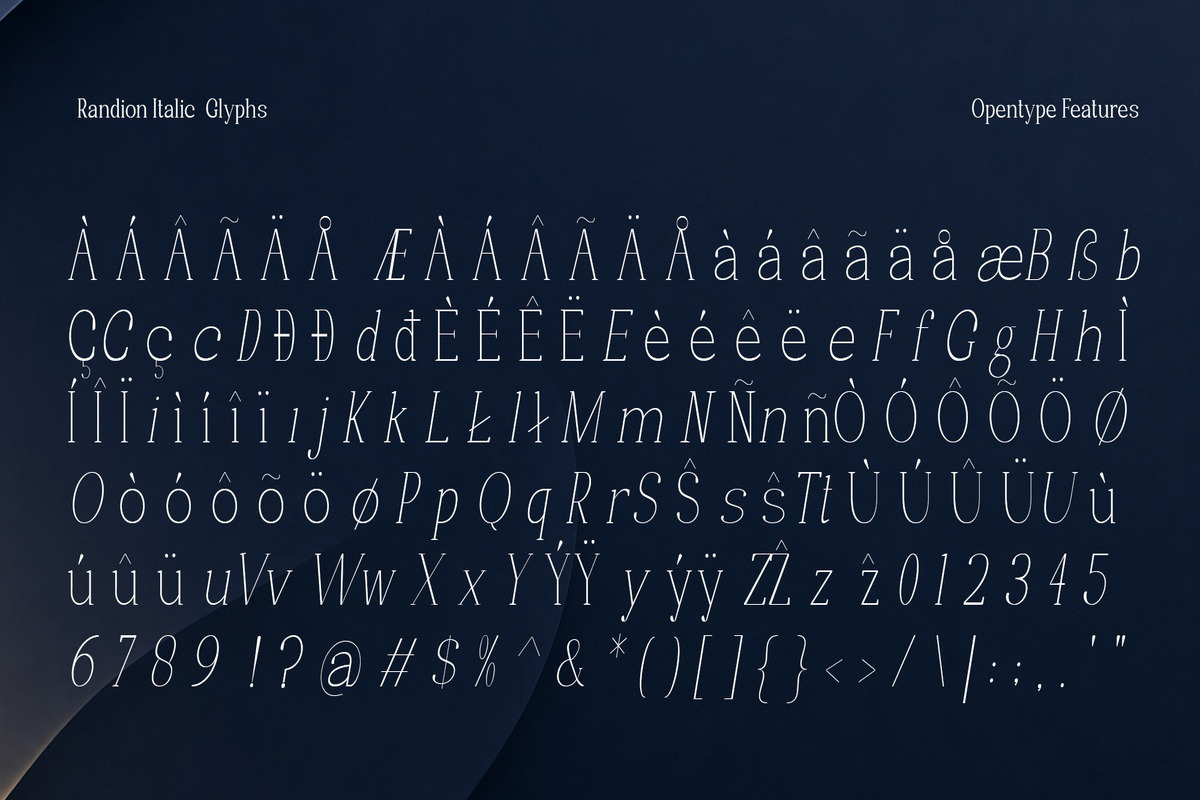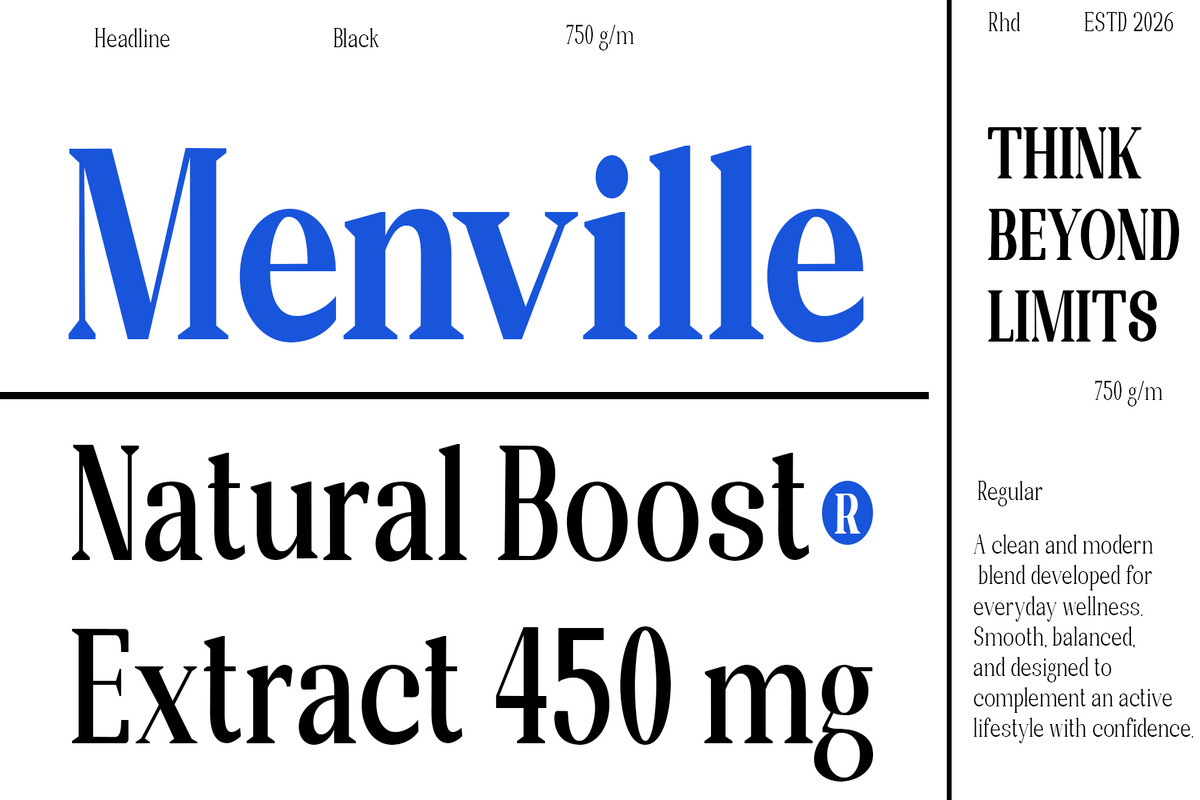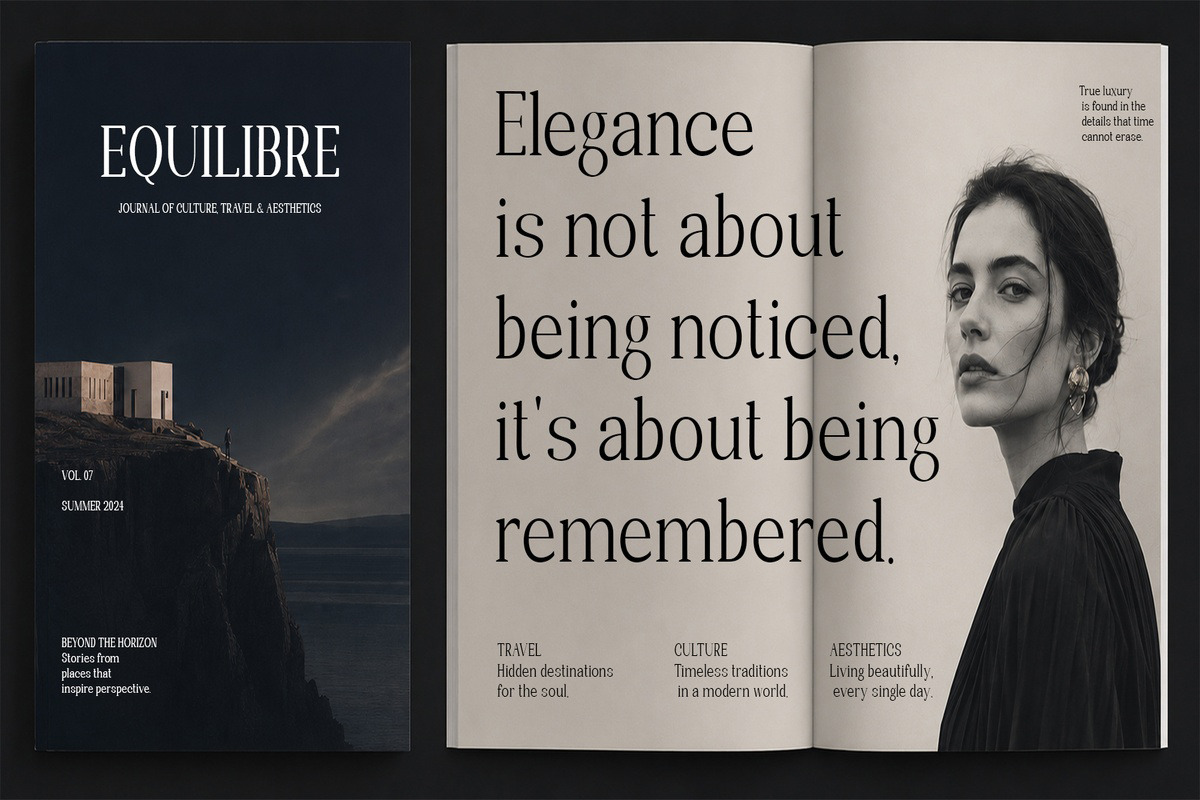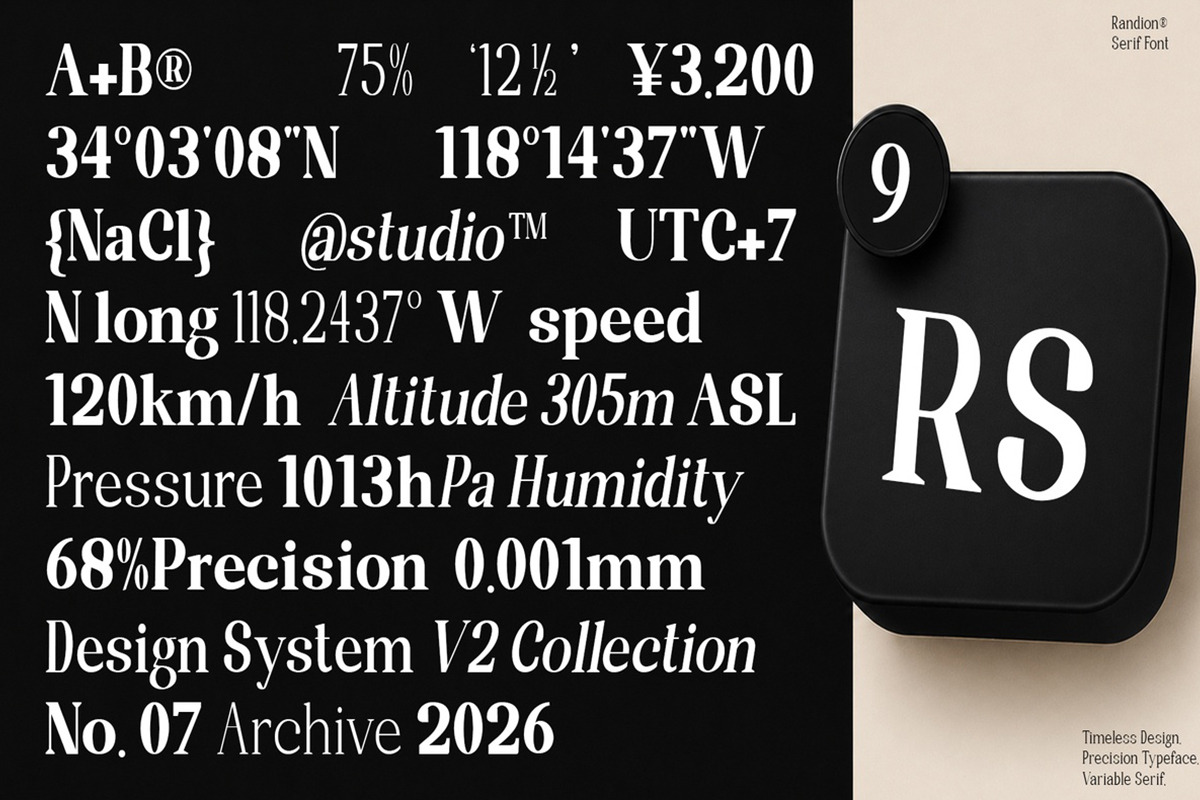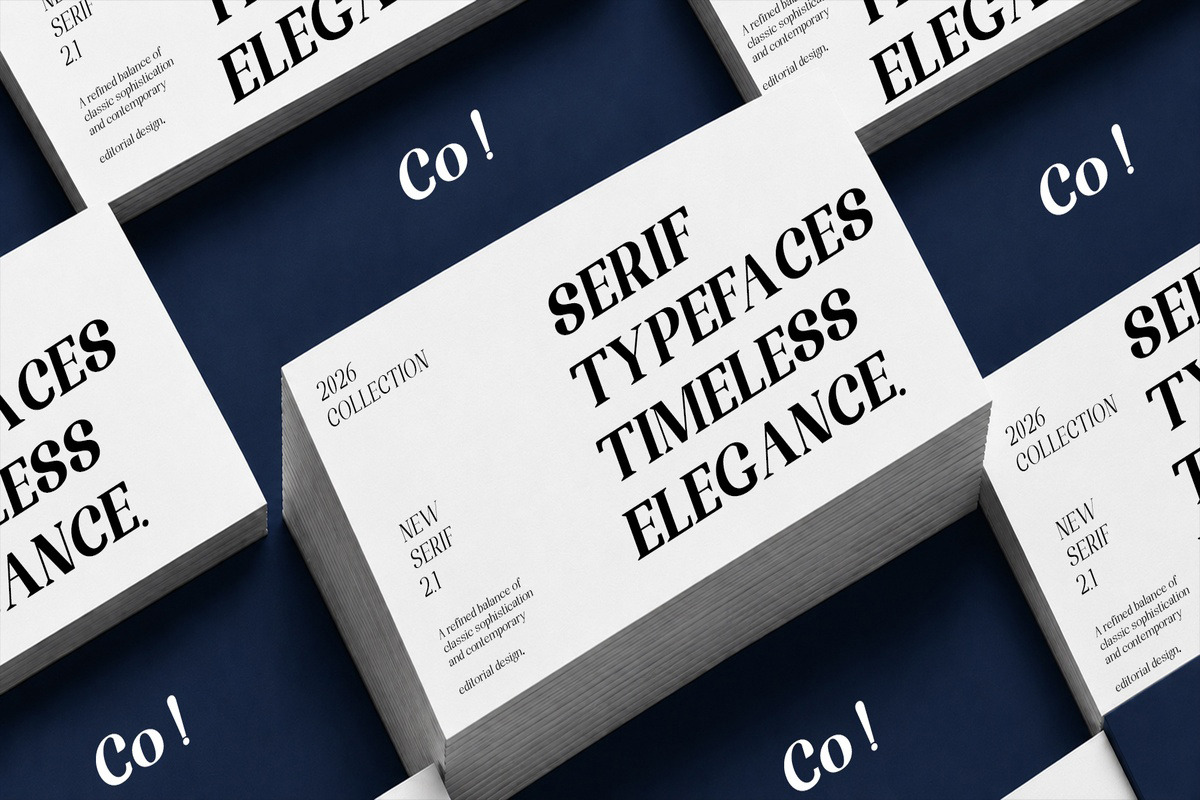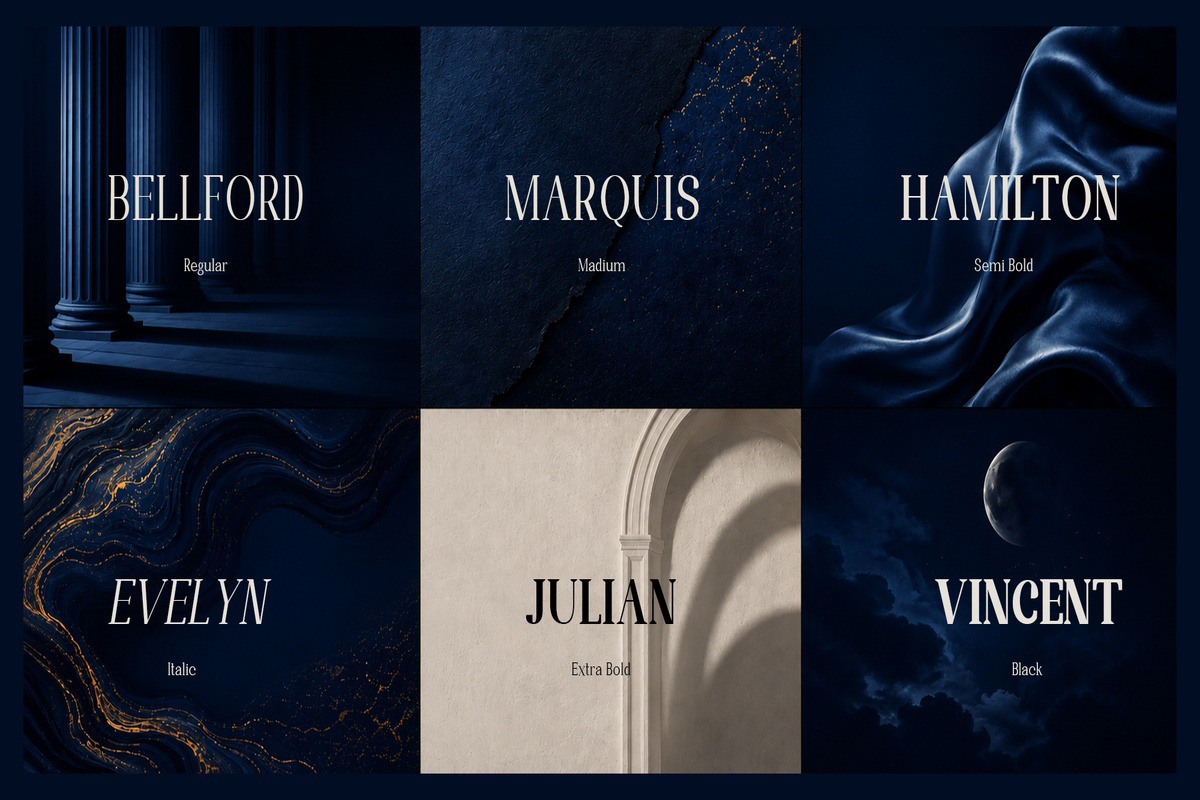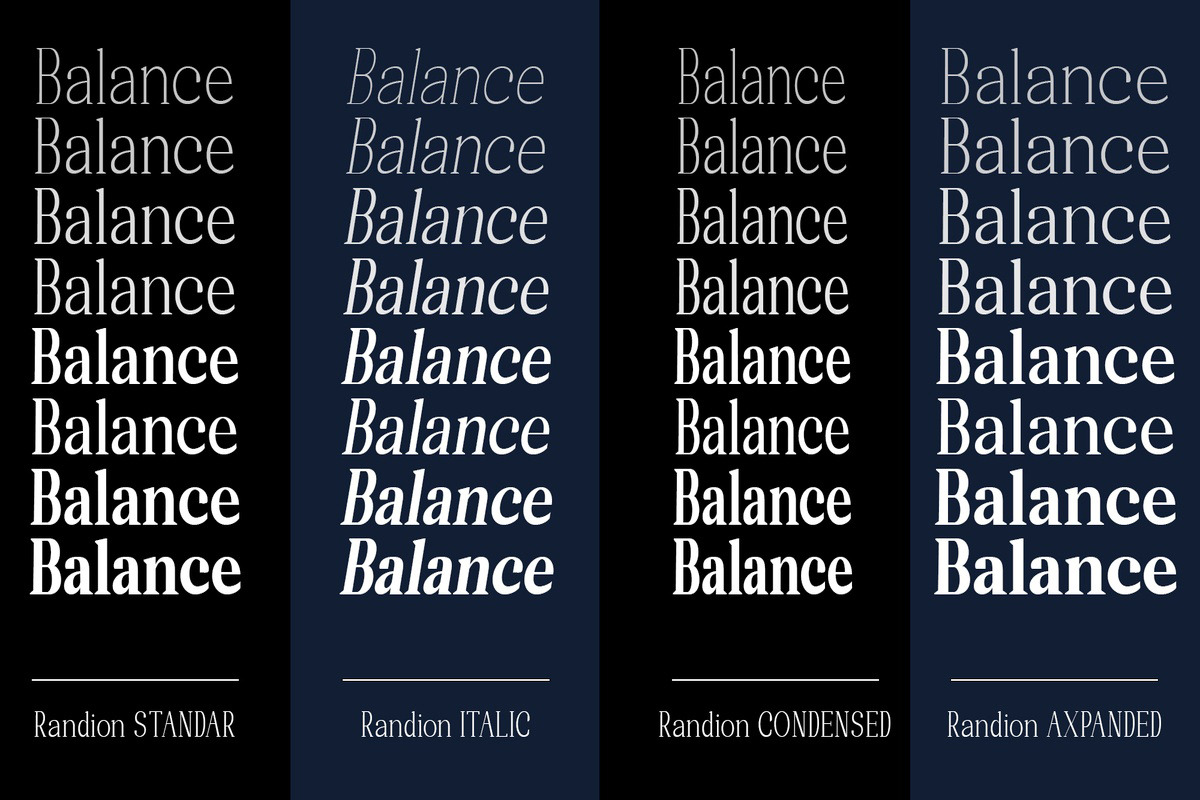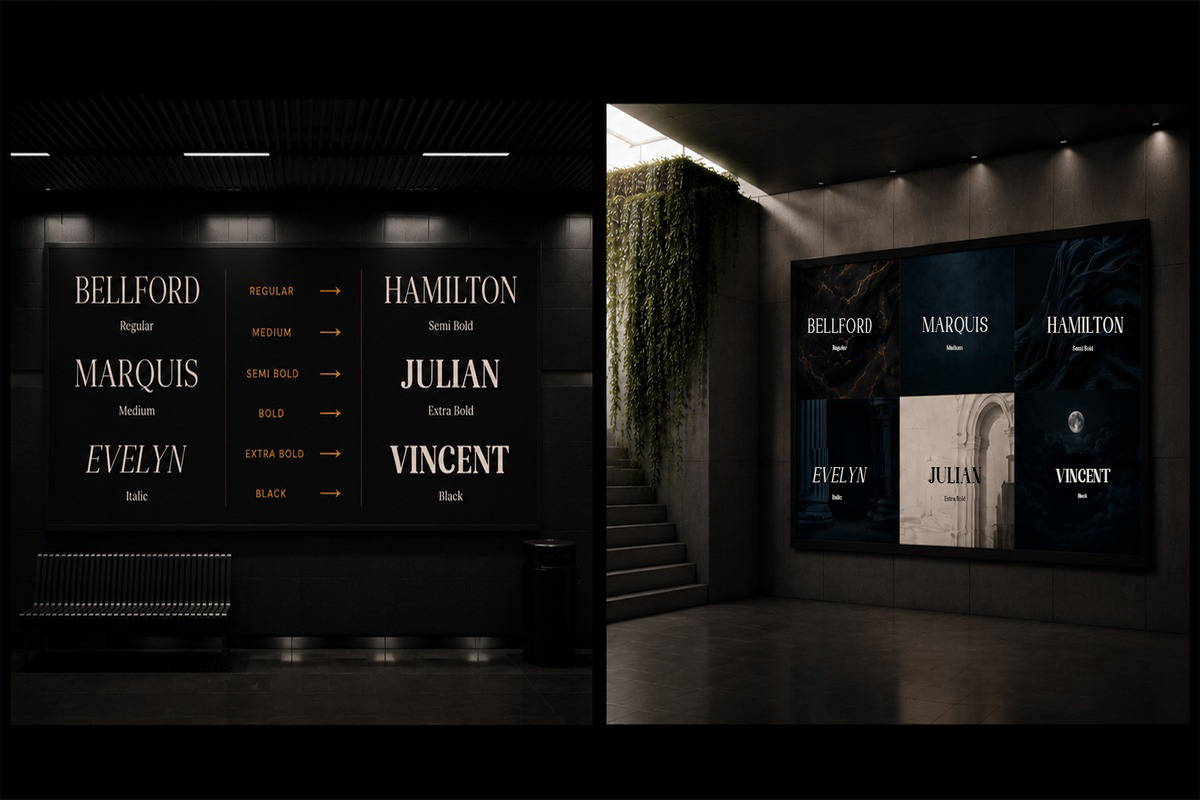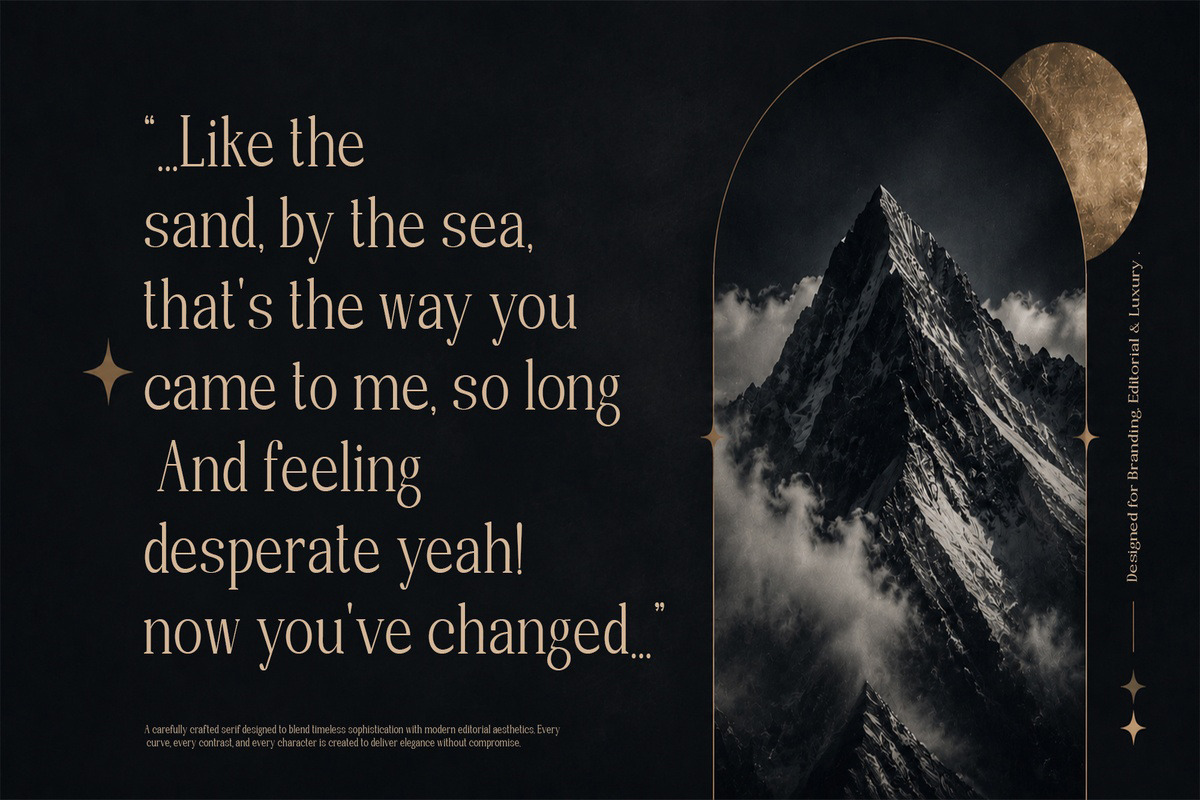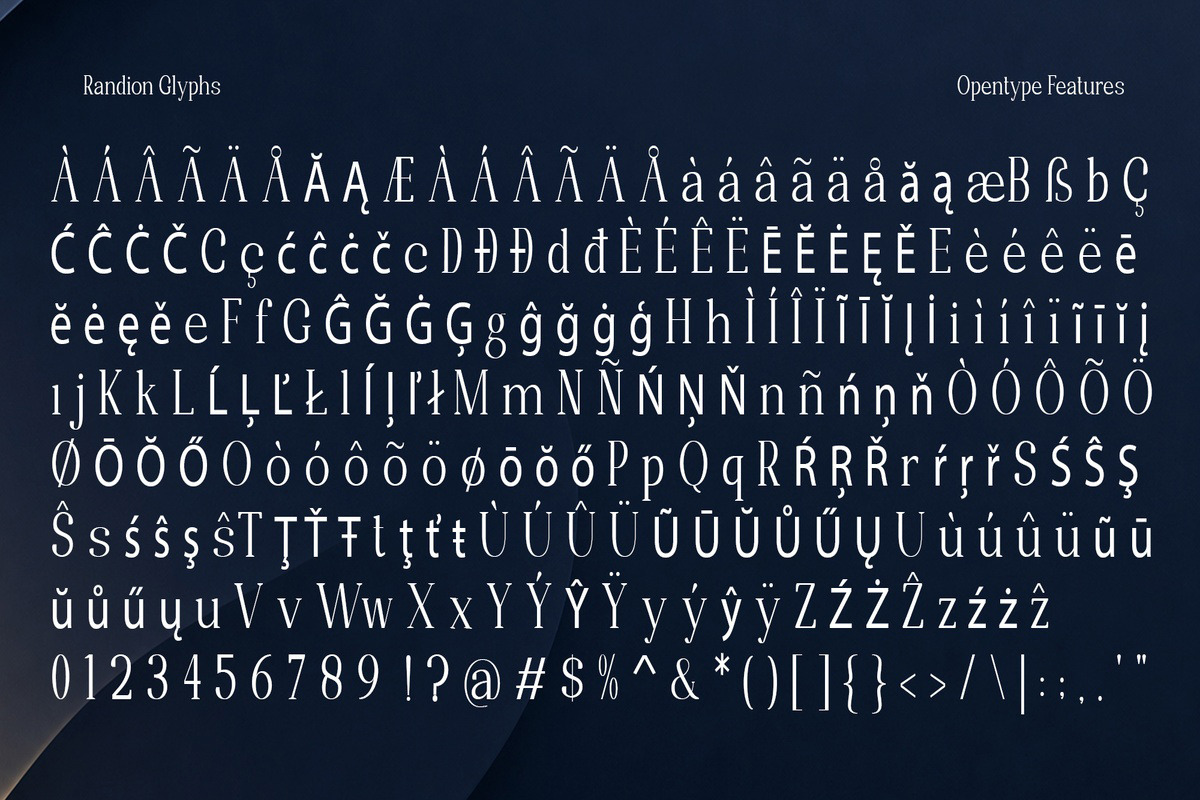
Randion
Randion™ is a refined serif typeface that blends timeless elegance with modern sophistication. Carefully crafted with balanced proportions and graceful details, it delivers a luxurious yet versatile character for branding, editorial design, packaging, fashion, and premium visual identities. Every letter is designed to create a confident, memorable impression while maintaining exceptional readability. Whether for bold headlines or refined typography, Randion™ brings classic beauty into contemporary design.